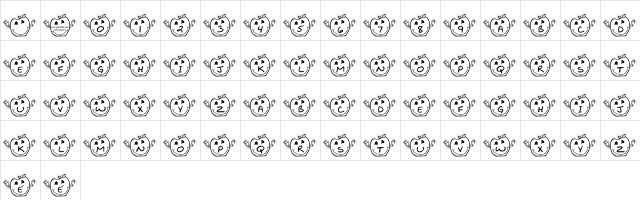
LCR Teacher's Pet Regular
Design Context for LCR Teacher's Pet Typeface
LCR Teacher's Pet is a composed and adaptable typeface that performs quietly and consistently across a wide range of design contexts.